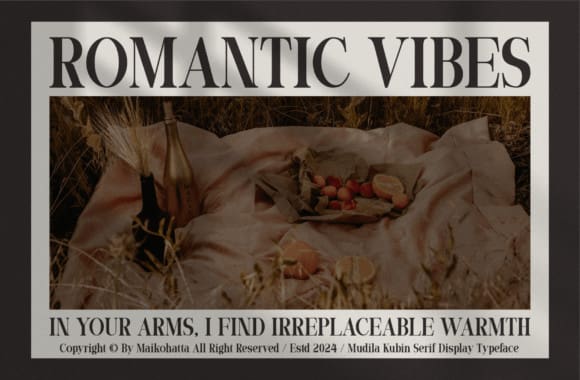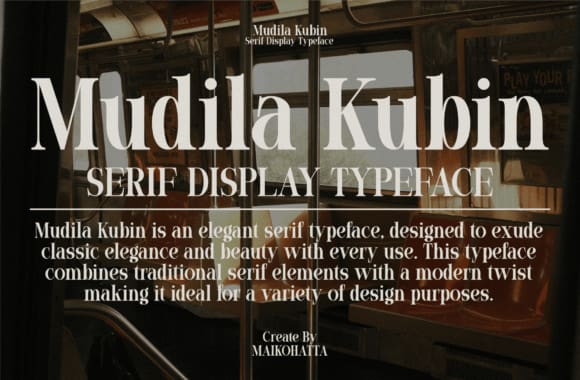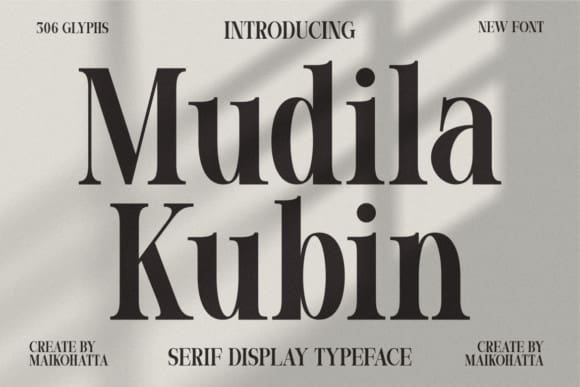
Mudila Kubin Font
Mudila Kubin Font – Serif Display Typeface. This font features a balanced proportion of stroke thickness and fineness, creating attractive and easy-to-read visuals. This modern serif style is often characterized by a bold distinction between thick and thin lines, providing a touch that is understated but still stands out.